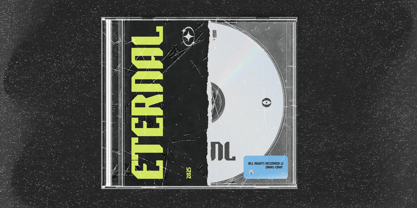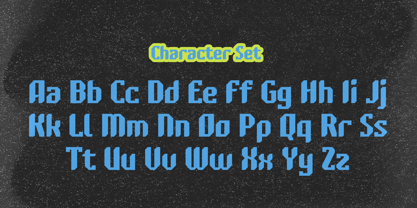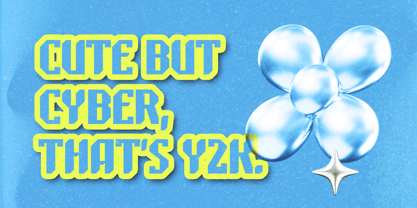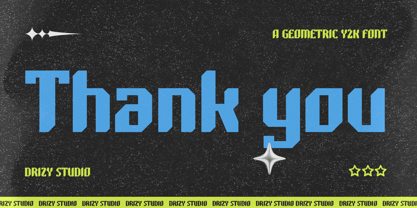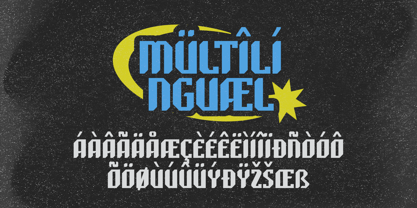
Keysta
by Drizy Font
The Keysta Font Family was designed by Panca Ahmadi Hasan and published by Drizy Font. Keysta contains 1 styles. More about this family
Keysta – Y2K Geometric Font is a bold and futuristic typeface inspired by early 2000s tech and fashion aesthetics. Its clean geometric shapes and sleek curves bring a modern-retro vibe perfect for logos, posters, apparel, and digital designs. Keysta adds a playful yet edgy touch—ideal for anyone looking to make a statement with a Y2K twist. Keysta – Y2K Geometric Font features: Uppercase & Lowercase Punctuation & Numbers Multilingual Ligatures Elevate and explore the design possibilities with this Y2K Geometric Font!